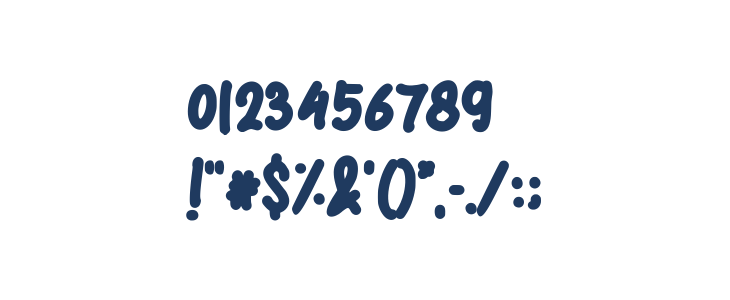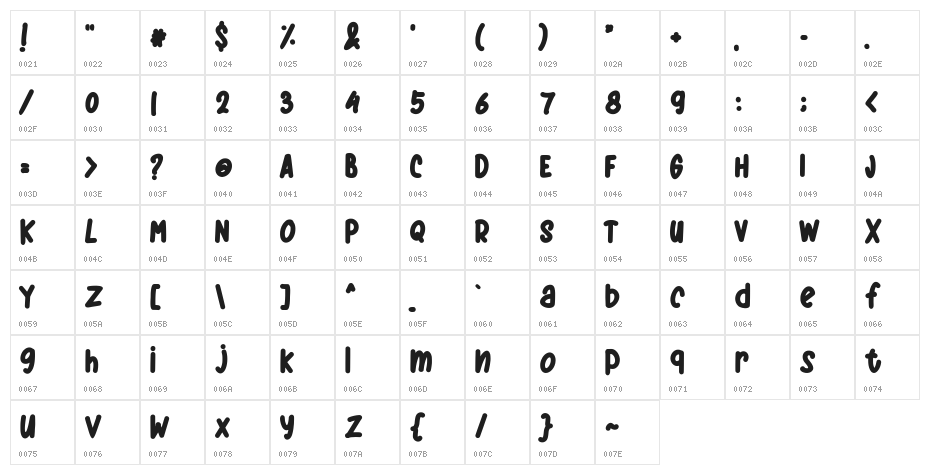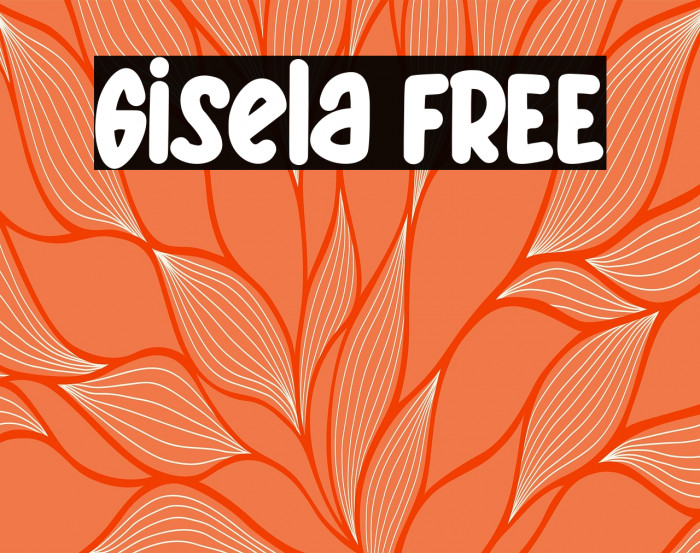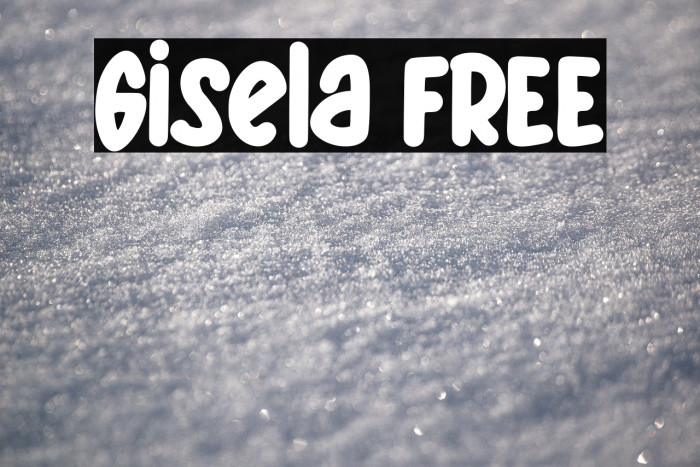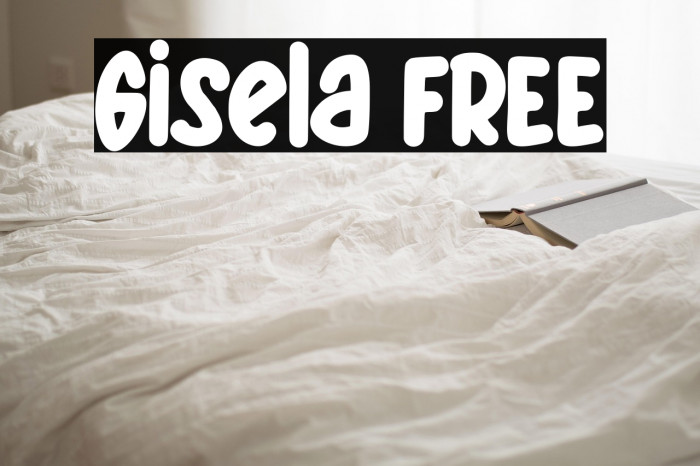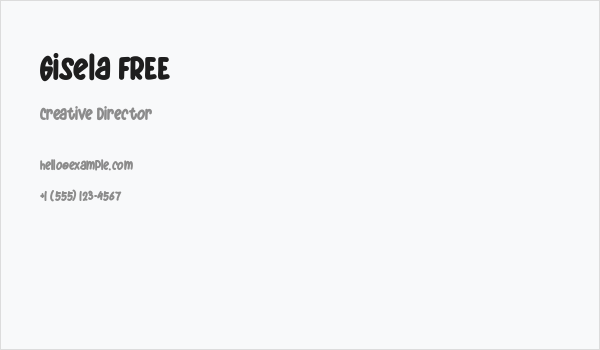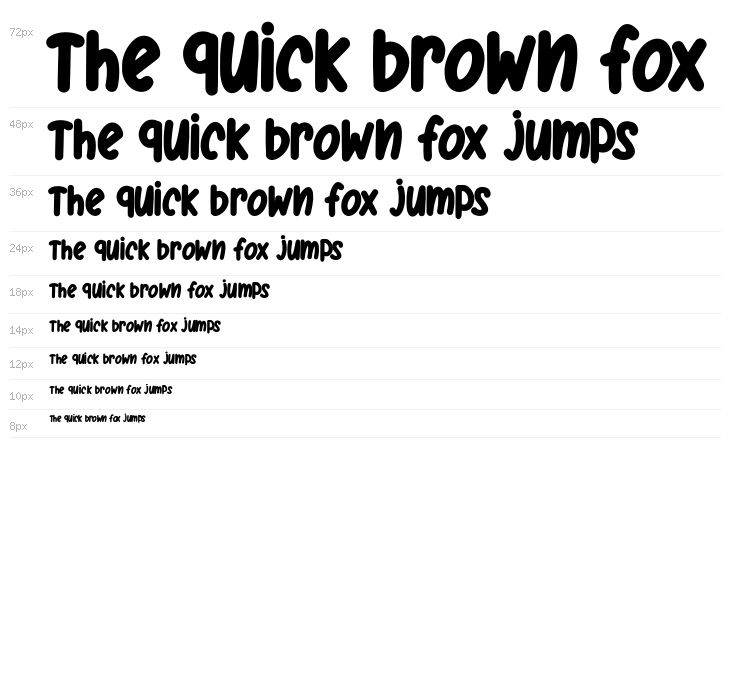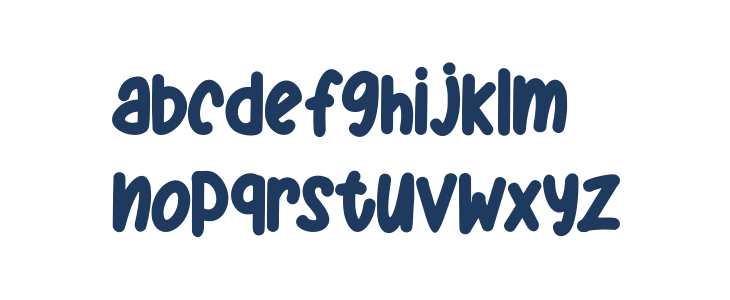
Gisela FREE Font
Gisela FREE Description
This font features a playful and bold style with rounded edges and a slightly irregular form, giving it a hand-drawn appearance. The characters are thick and have a consistent weight, making them highly legible. The uppercase and lowercase letters maintain a uniform height, contributing to a cohesive look. The numbers and special characters follow the same design principles, ensuring a harmonious overall appearance. This font exudes a friendly and approachable vibe, making it suitable for various creative applications.
| Overall Style | Playful, Hand-drawn |
| Proposed Projects | Ideal for children's books, playful branding, posters, and social media graphics. |